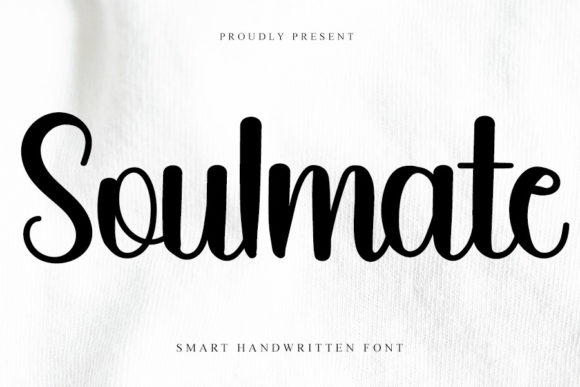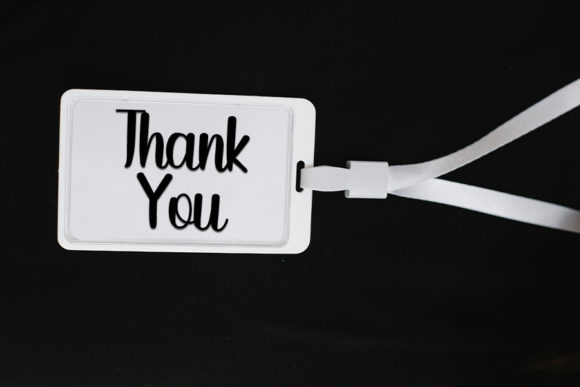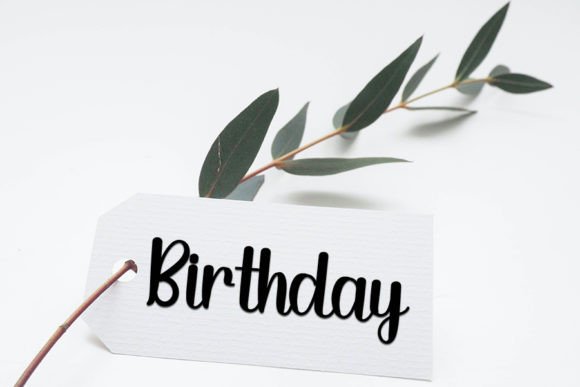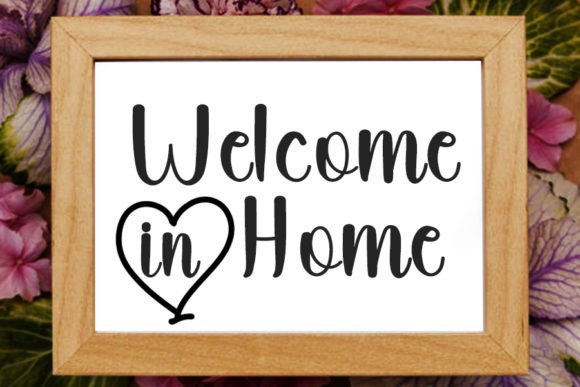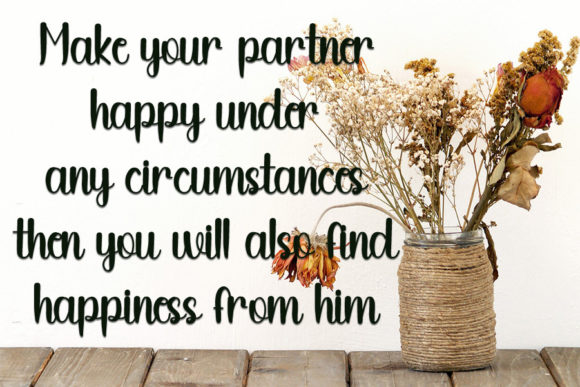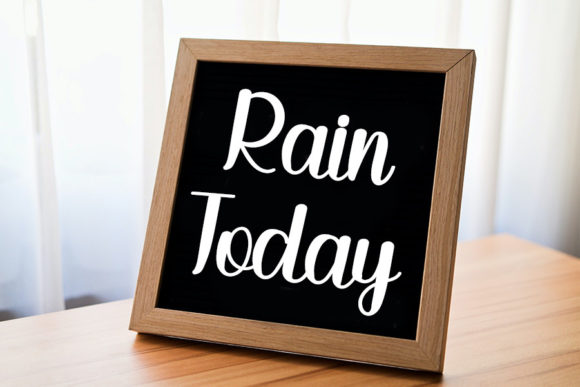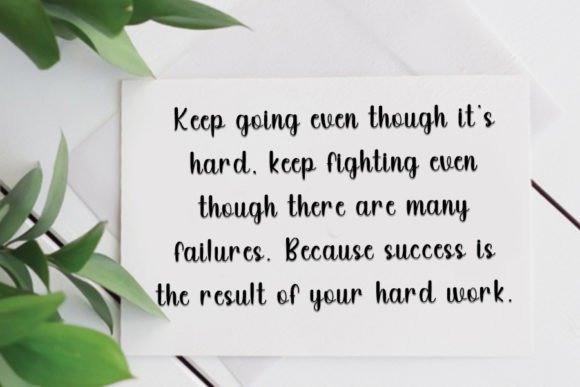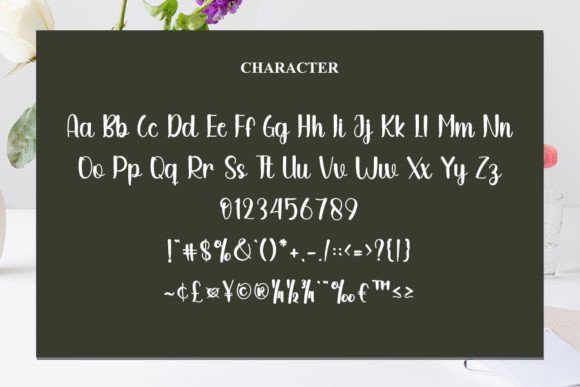
Soulmate Font
About Soulmate Font
Soulmate is a trendy handwritten font with a contemporary atmosphere and impeccable form, inspired by timeless classic calligraphy. It will add elegance and class to any of your design projects. This font can be used to write various kinds of products according to the aspect of each need.